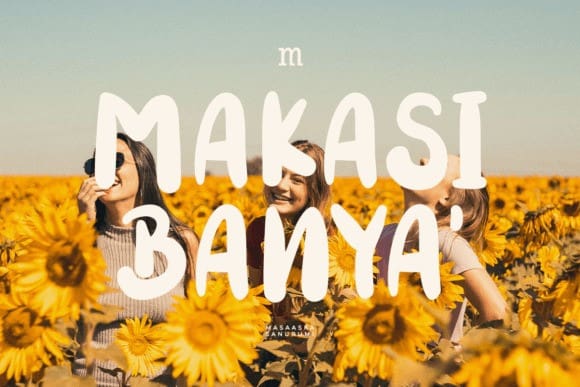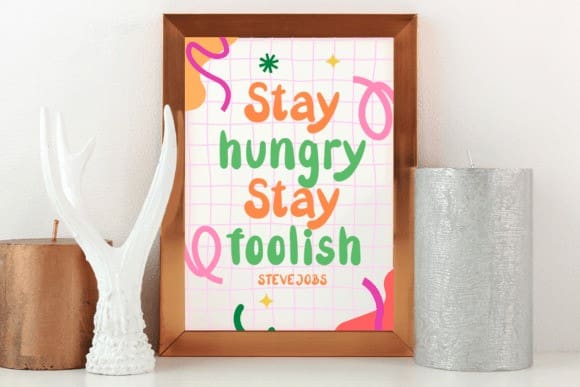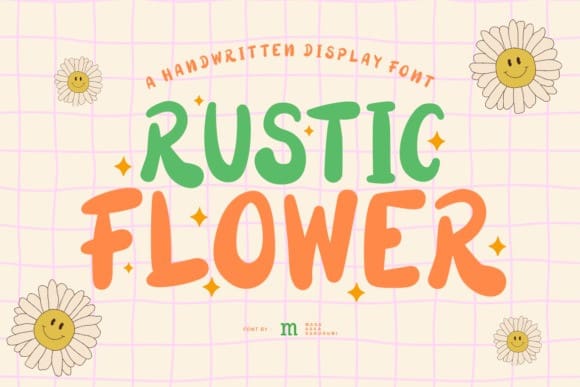
Rustic Flower Font
Rustic Flower Font is a versatile and playful display font, perfect for a wide spectrum of applications such as greeting cards, headlines, and many more! Add it to any of your creative projects, and it will give them a clean and exquisite feel.